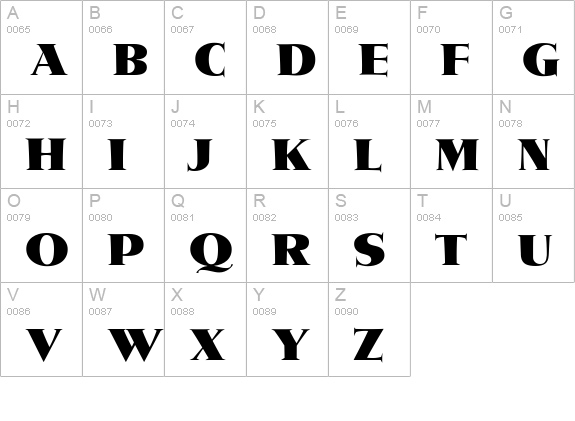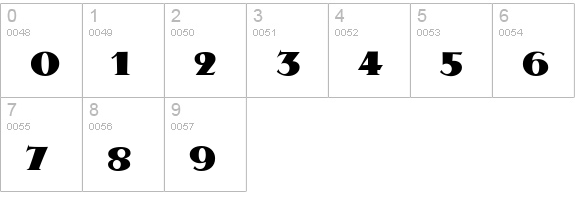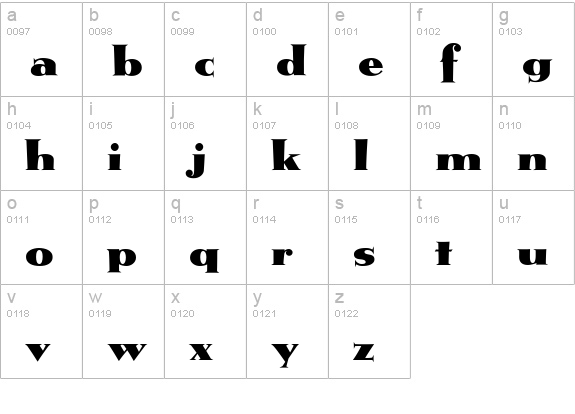
CgMetropolis Font Details
CgMetropolis is a sleek and modern font that exudes sophistication and elegance. With its clean lines and sharp angles, this typeface is perfect for creating a contemporary and stylish look in your designs. Whether you're working on branding, advertising, or editorial projects, CgMetropolis will add a touch of class and professionalism. What sets CgMetropolis apart is not just its stunning aesthetics, but also the fact that it is available for free download at FontsMarket.com. This means that you can easily access this high-quality font without any cost, making it a valuable addition to your font library. Don't miss out on the opportunity to elevate your designs with CgMetropolis - download it today and experience the beauty of this versatile typeface!